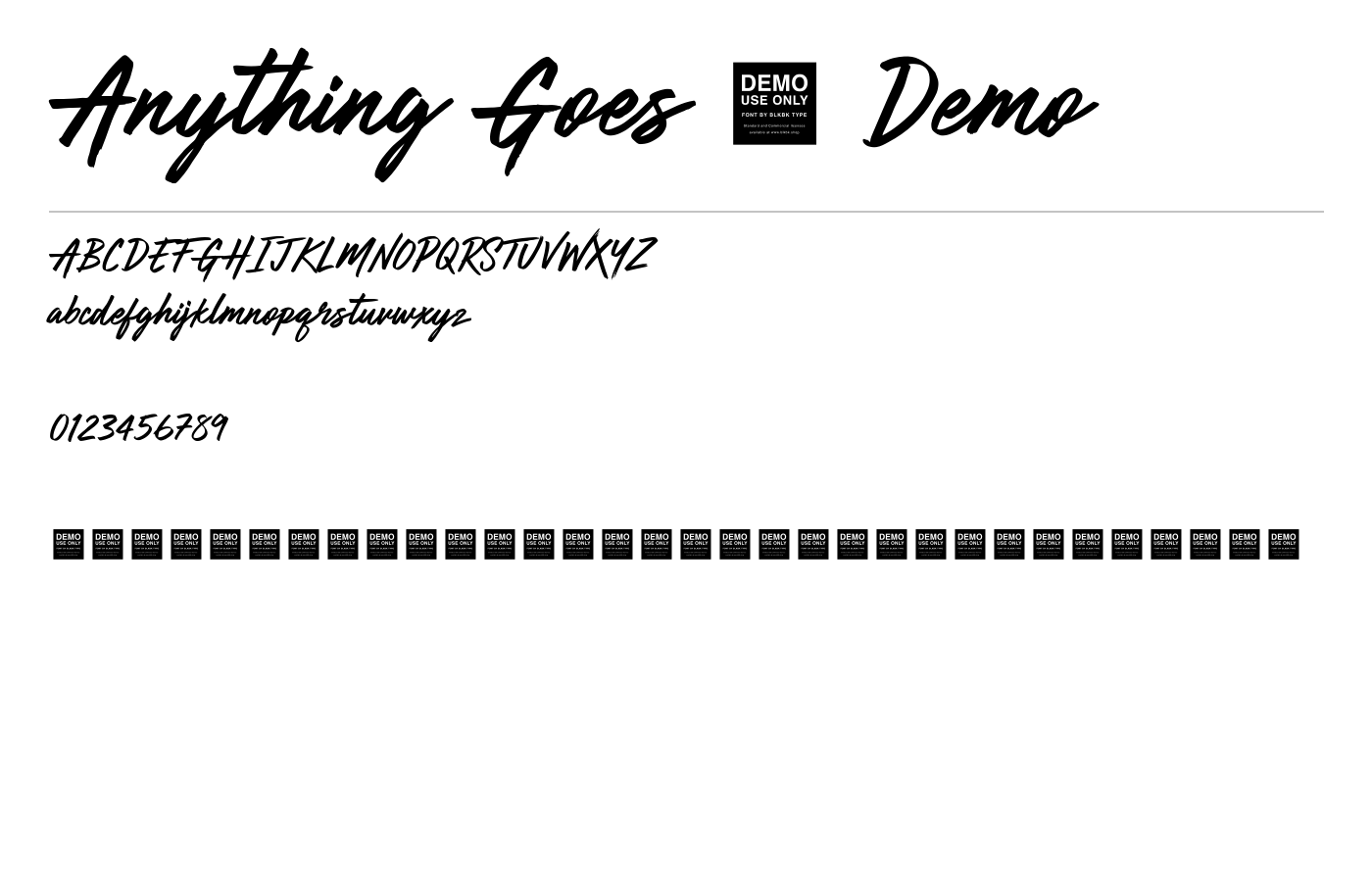
Anything Goes is a lively and expressive script font that mimics natural handwriting with energetic, slightly slanted strokes. It features a casual yet bold style, making it perfect for creative projects that want to convey personality and a friendly, approachable vibe. Ideal for branding, invitations, and headlines, this font adds a dynamic and personal touch to any design.
Anything Goes - Demo Font
About Anything Goes - Demo Font